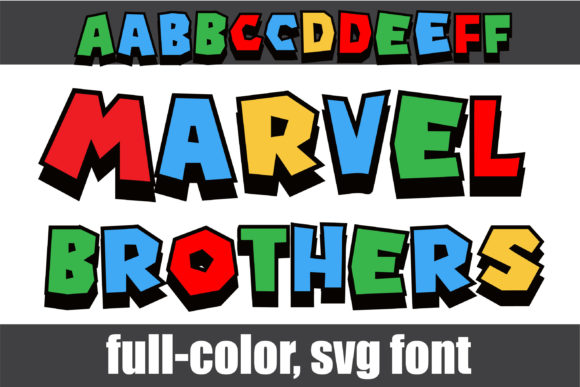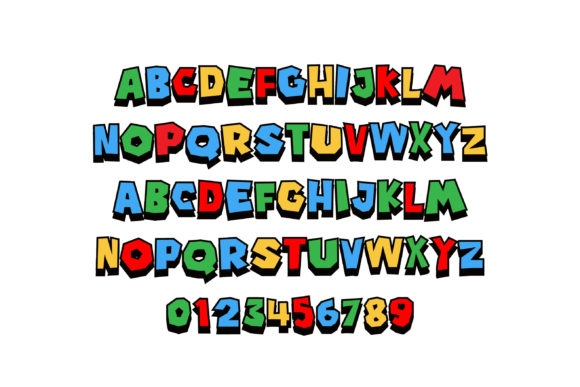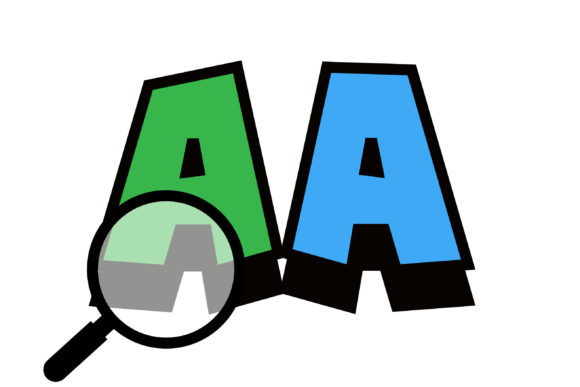
This full-color font features blocky, primary-colored lettering with black shadows. There is a second upper and lower alt case you can access through your system’s character map.